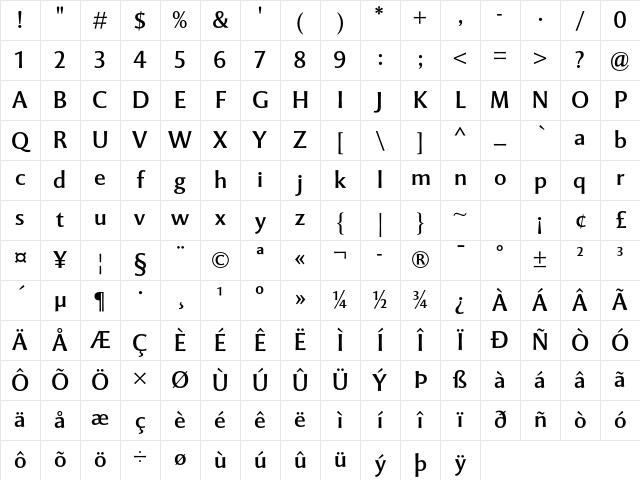
Mentor Sans Std Regular
Designer: Michael Harvey and Andy Benedek
Design Context for Mentor Sans Std
Mentor Sans Std is a composed and adaptable typeface that performs quietly and consistently across a wide range of design contexts.